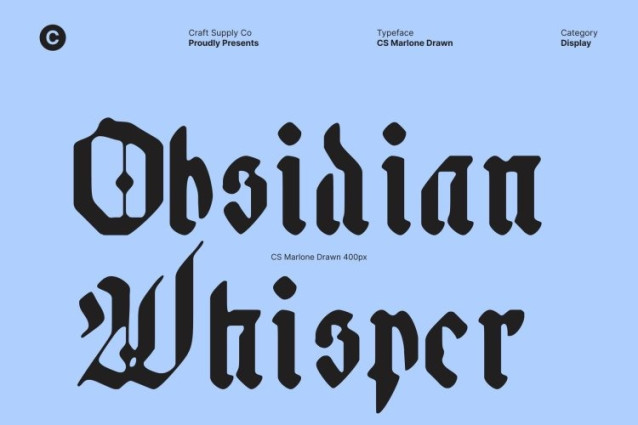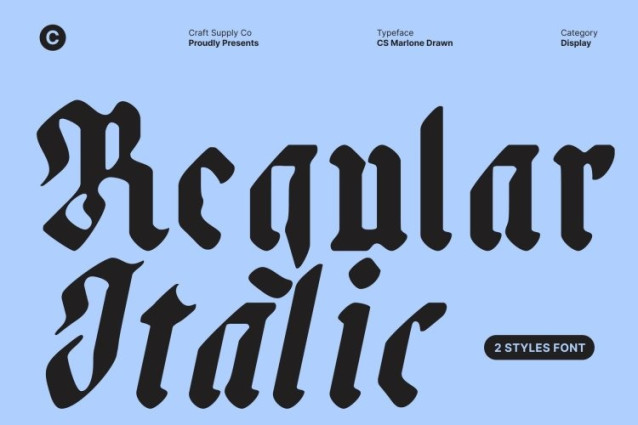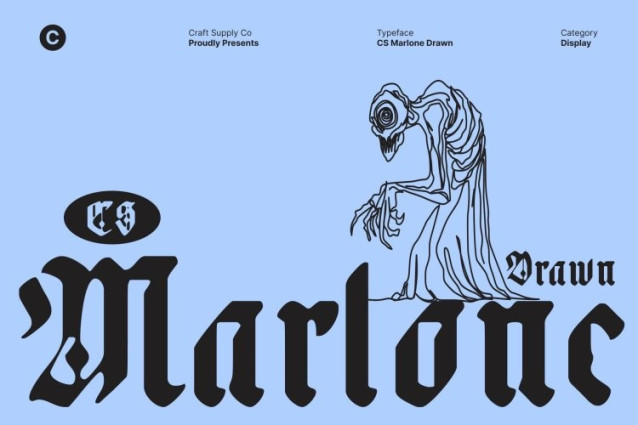
CS Marlone Drawn Font
CS Marlone Drawn Font This is a decorative Blackletter display font designed to deliver bold, dramatic impact. Its thick, commanding strokes and striking angles create a sense of power and presence, making every word feel monumental. Ideal for projects that require a strong visual statement, this font immediately draws attention while conveying a sense of sophistication and mystery.
Hand-Drawn Texture for Artistic, Unique Personality
Adding to its dramatic Blackletter style, features a drawn texture that gives each letter a handmade, artisanal quality. The textured strokes enhance its authenticity and charm, making the font feel alive and expressive. This artistic touch ensures that every design stands out with personality, depth, and a tactile visual appeal.
Classic Yet Distinctive Aesthetic
While rooted in traditional Blackletter design, introduces a modern, creative twist through its textured details and refined composition. The combination of classic elegance and unique artistic flair allows it to feel timeless while remaining contemporary, giving designers the flexibility to create visually rich, memorable projects.
Perfect for Book Covers, Posters, and Branding
This font excels in display applications where boldness and individuality matter. From eye-catching posters and dramatic book covers to distinctive branding and editorial layouts, this font delivers a powerful visual voice. Its handmade texture and commanding Blackletter forms ensure that every project feels striking, expressive, and unforgettable.